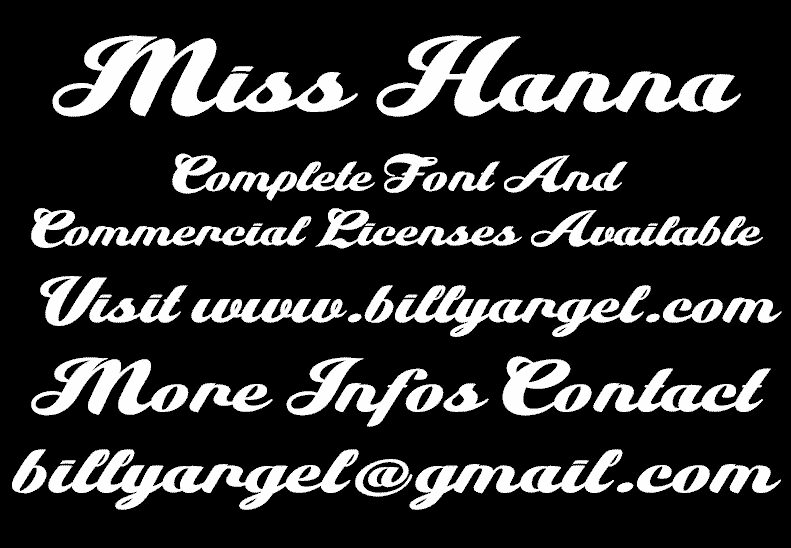
Miss Hanna Personal Use
Miss Hanna is a captivating font that exudes a smooth, brush-like elegance. Designed by the talented Billy Argel, this bold and versatile typeface commands attention with its fluid lines and sophisticated flair.
The font's distinctive character shines through in its seamless strokes, offering a refined and contemporary aesthetic that can elevate a wide range of design applications, from high-end branding to eye-catching editorial layouts.
Miss Hanna's versatility and timeless appeal make it a valuable addition to any designer's toolkit, ready to infuse projects with a touch of refined sophistication.